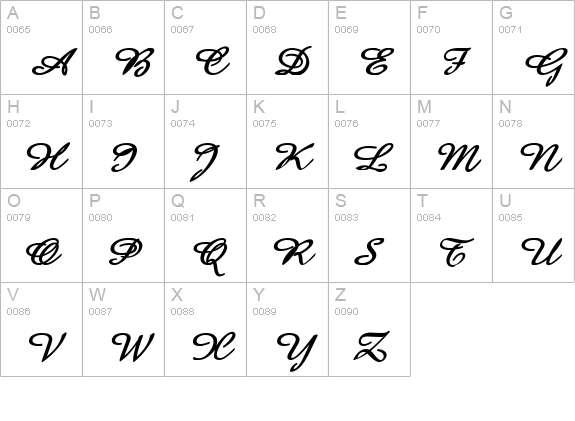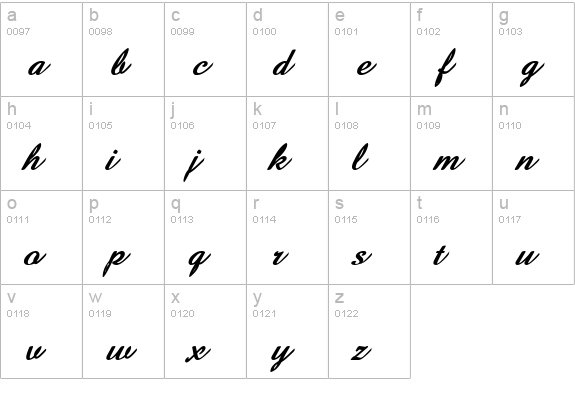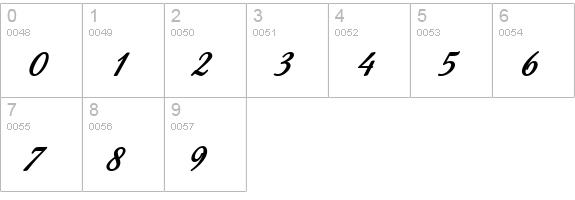
Amaze Bold Italic Font Details
Amaze Bold Italic is a strong, high-contrast, italic variant in the Amaze typeface family \xE2\x80\x94 well suited to headlines, attention-grabbing titles, and strong calls-to-action.
Amaze Bold Italic font is a dynamic and eye-catching typeface that exudes confidence and creativity. Its bold, slanted design adds a touch of modern flair to any project, making it perfect for headlines, logos, posters, and more. The unique combination of boldness and italics creates a striking visual impact that commands attention. Not only does Amaze Bold Italic font make a bold statement, but it also offers versatility and readability. Whether used in print or digital media, this font stands out while remaining easy to read. Its sleek lines and elegant curves make it a versatile choice for a wide range of design applications. The best part is that Amaze Bold Italic font is available for free download at FontsMarket.com. This means you can easily access and use this stunning typeface in your projects without any cost. Don't miss out on the opportunity to enhance your designs with the bold and modern style of Amaze Bold Italic font. Download it today and take your designs to the next level!